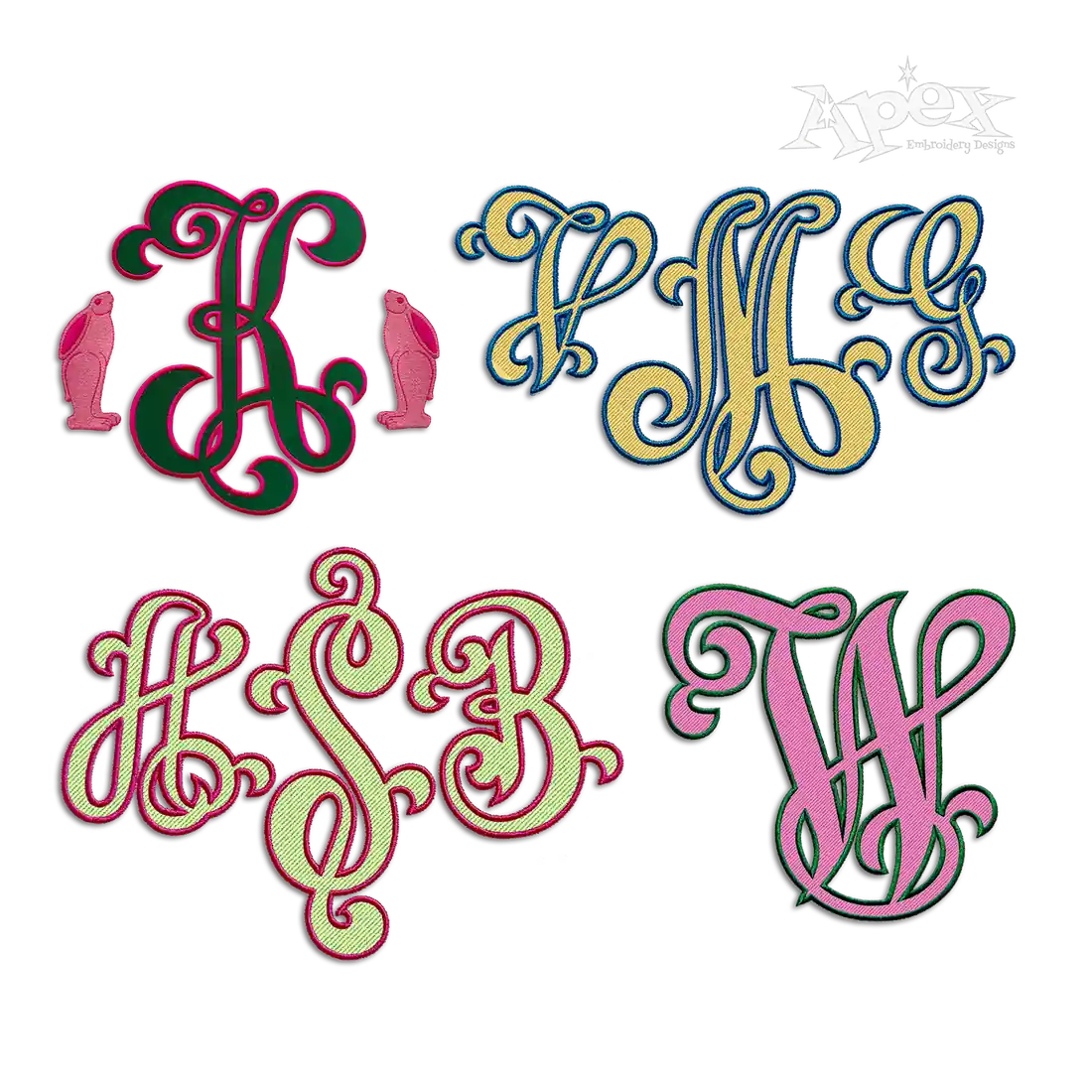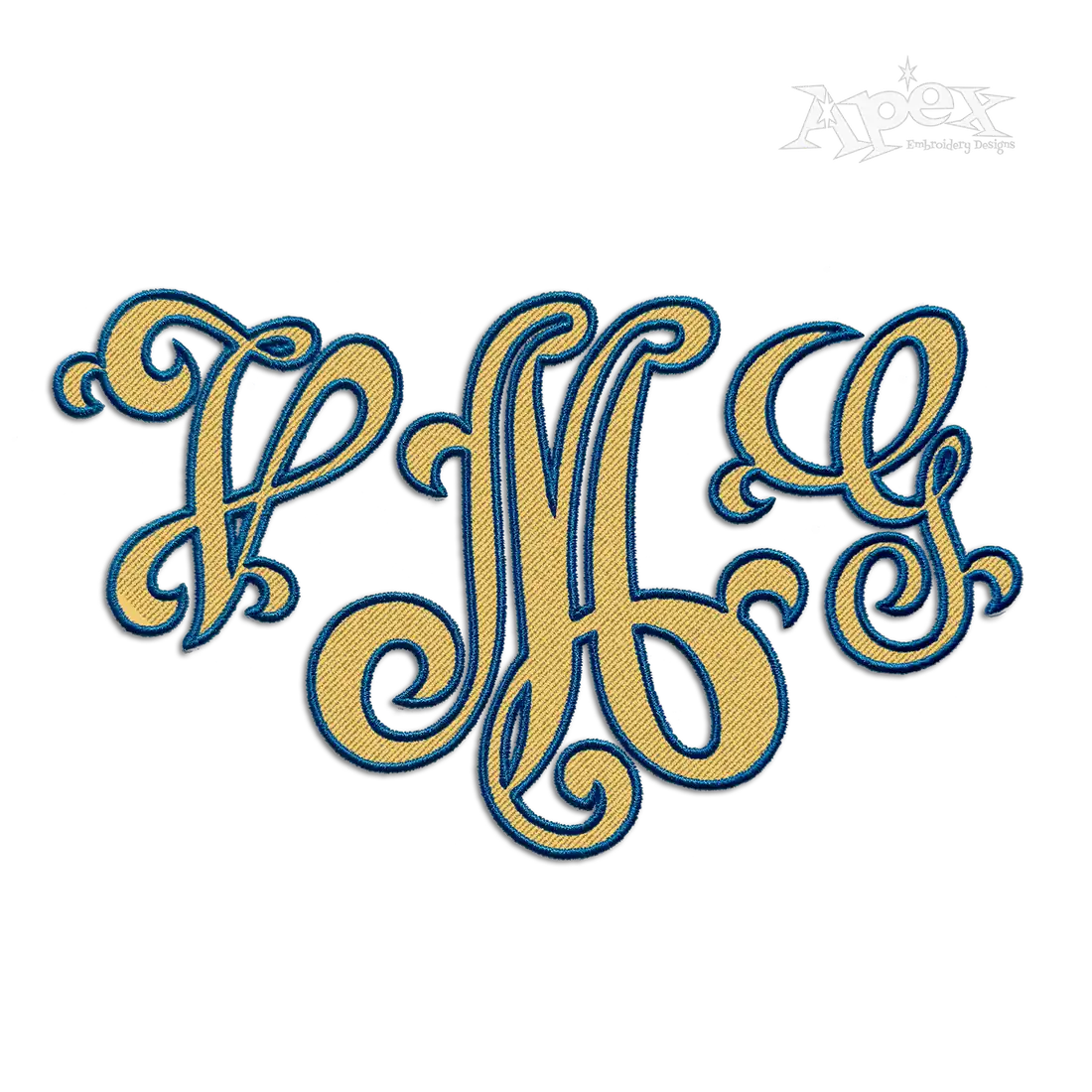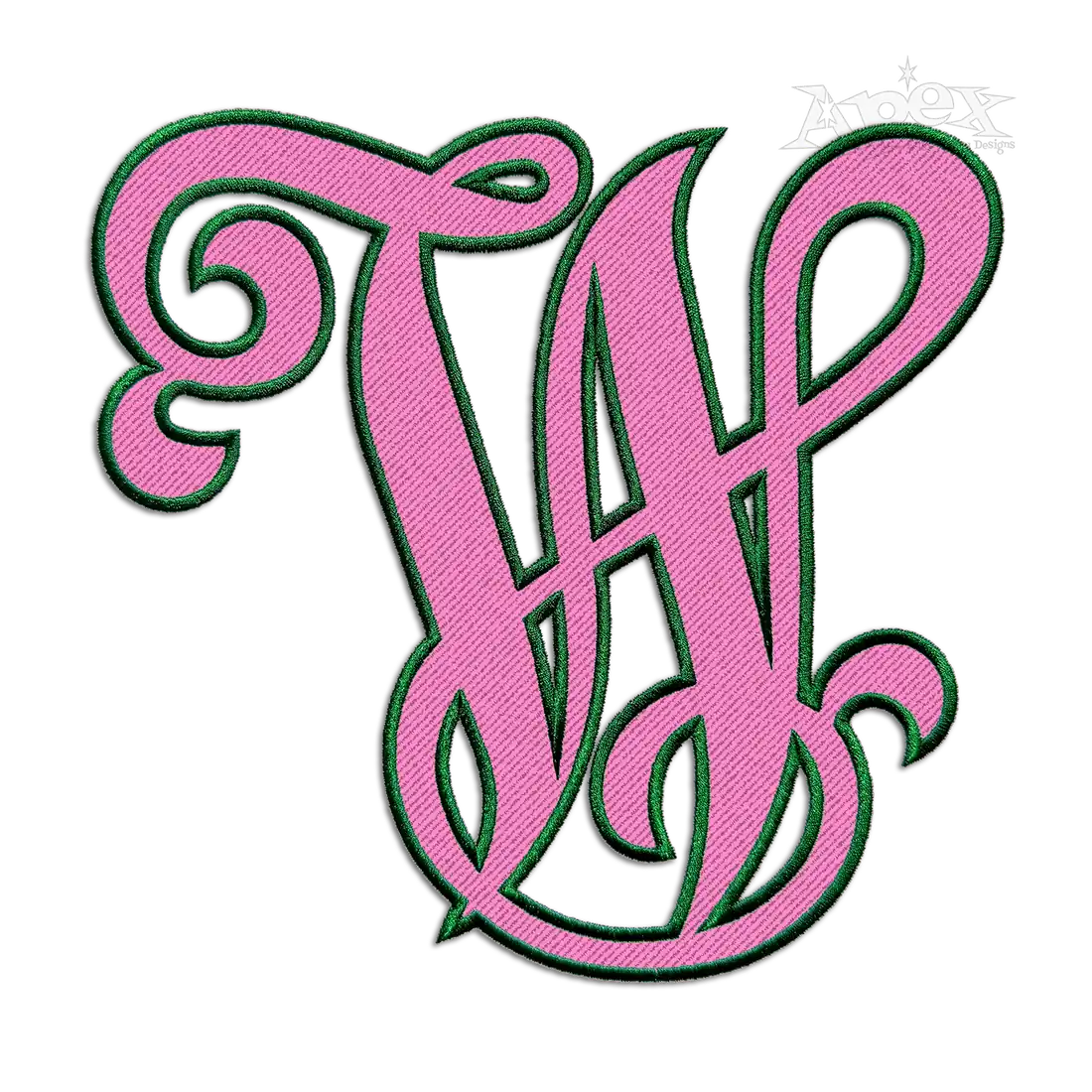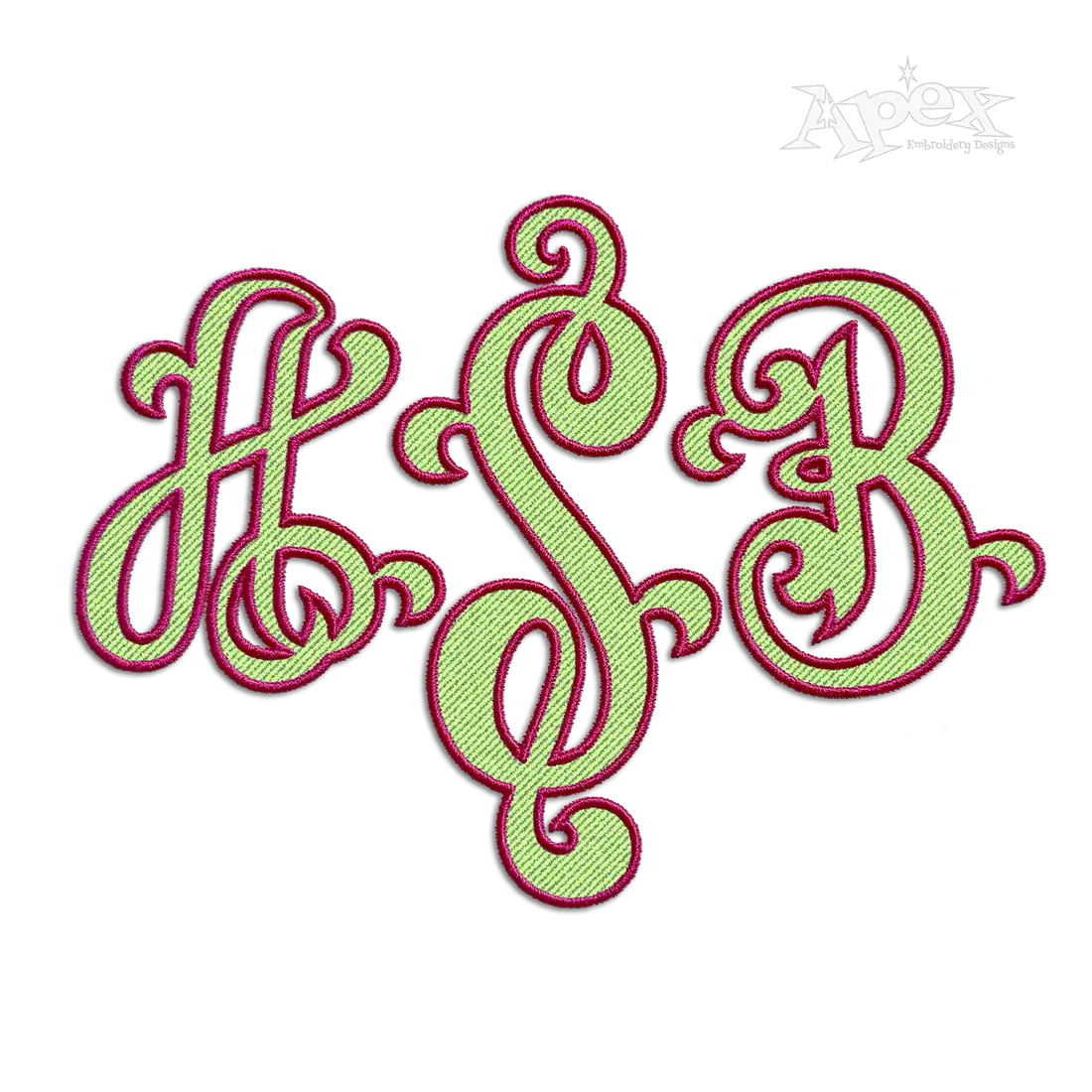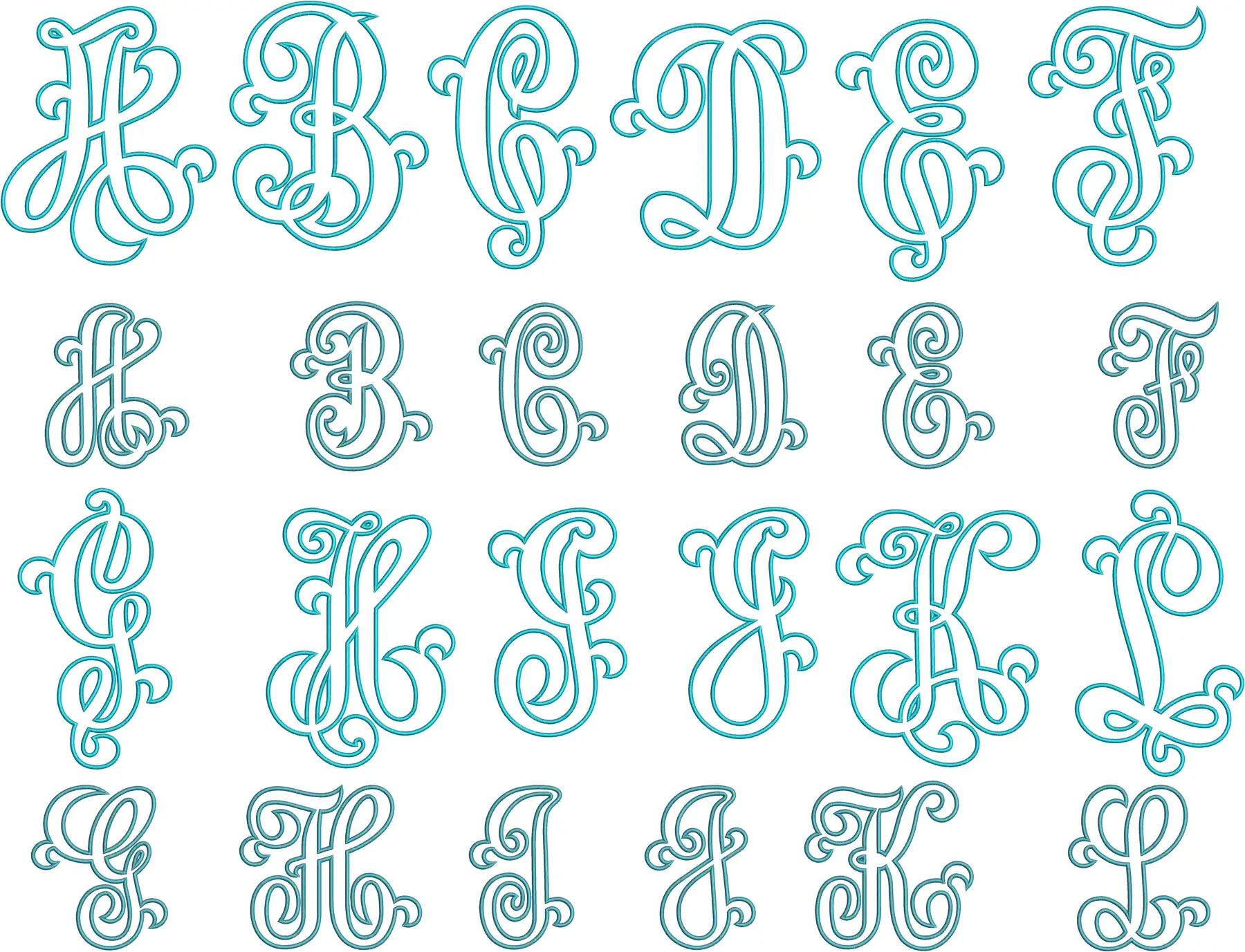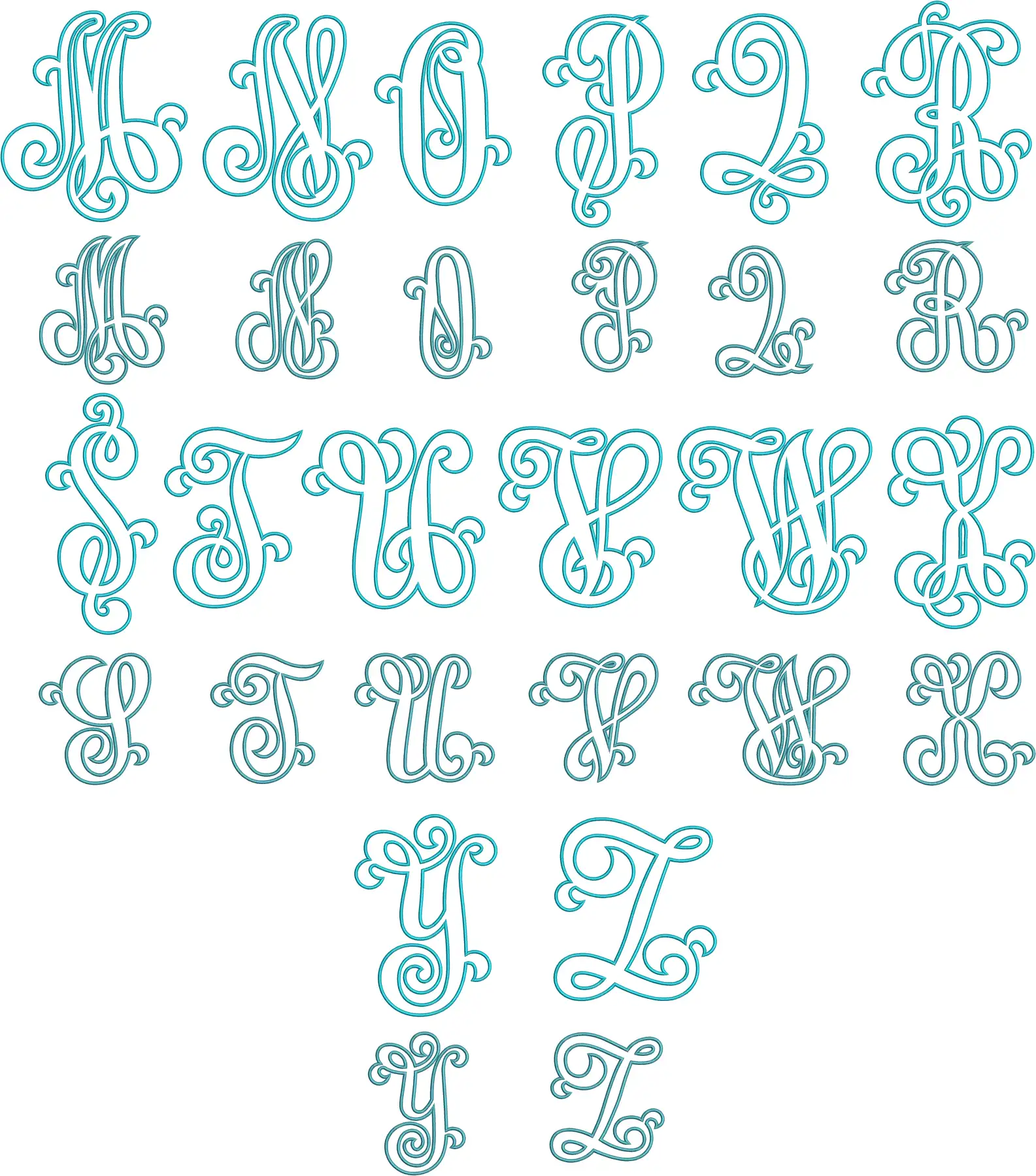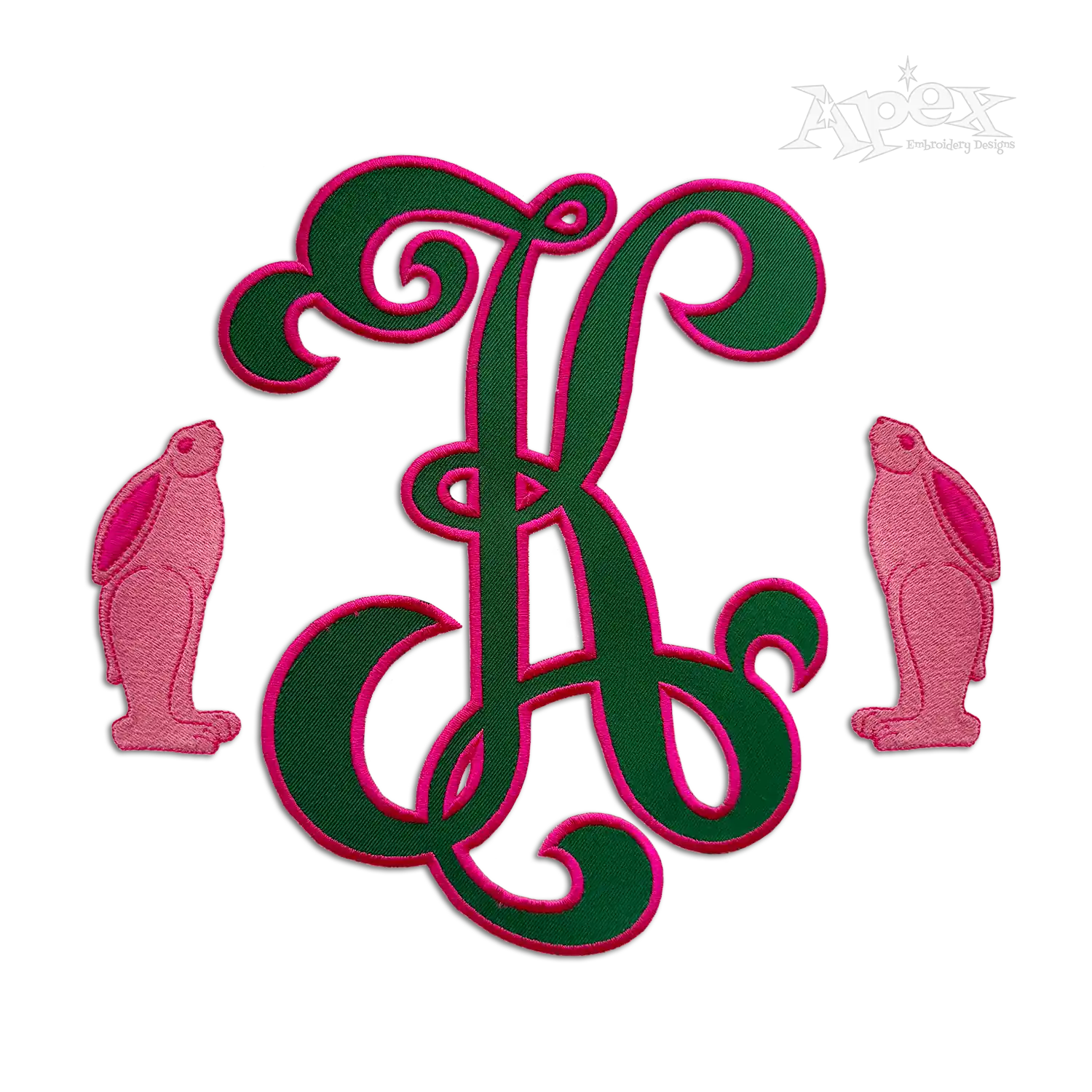
Vinoy Applique Monogram Embroidery Font
Conceived with the grandeur of historic coastal resorts and the stately romance of gilded architecture, the Vinoy Applique Monogram was digitized to command attention with effortless grace. Designed for expansive, grand-scale embroidery where standard monograms simply get lost, this font harmonizes crisp geometric contours with the rich tactile depth of fabric appliqué. Every curve invites the marriage of complementary textiles—from crisp linen and ticking stripes to soft liberty prints—creating an unmistakable bespoke aesthetic that feels both lavishly modern and steeped in Southern heirloom tradition.
The Vinoy Applique Monogram is structured specifically for large-hoop machines, providing beautifully proportioned components to build classic three-letter monograms or dramatic single-initial focal points:
- Two Complete 26-Letter Sets: Designed with dramatic center capitals and perfectly scaled flanking letters for traditional monogramming balance.
Project Ideas for Vinoy Applique Monogram
Because of its heroic scale, the Vinoy Applique Monogram excels wherever high-impact elegance is required:
- Heirloom Bedding & Euro Shams: Frame a grand master bedroom with an oversized center monogram stitched onto crisp 400-thread-count percale or natural linen Euro pillows.
- Heavyweight Canvas Beach & Resort Totes: Elevate luxury travel gear by pairing nautical canvas with bold patterned appliqué lettering.
- Bespoke Nursery Quilts & Keepsake Blankets: Create a generational gift featuring the child’s initial framed in soft gingham or floral chambray.
- Upholstery & Statement Accent Pillows: Add refined personalization to covered patio cushion backs, bench cushions, or fireside wingback accent pillows.
- Grand Holiday Tree Skirts: Adorn an expansive linen or velvet tree skirt with a stately family monogram to anchor your seasonal decor.
Scale dictates strategy when working with large-format appliqué. To make the most of the Vinoy letterforms, consider these positioning techniques:
- Grand Euro Sham Center: Position the monogram directly in the dead center of a 26" x 26" pillow form to create an imposing designer focal point.
- Lower Edge Duvet Banding: Center an oversized single letter 12 to 14 inches above the foot of the bed, creating a European hotel aesthetic.
- Off-Center Canvas Tote Placement: Rather than a small centered mark, set a 10-inch single initial slightly low and centered on the body of an oversized heavy-duty tote bag.
- Throw Blanket Corner Anchor: Angle an initial along the corner diagonal, set 8 to 10 inches inward from the corner hem, ensuring the applique drapes elegantly over the arm of a chair.
Vinoy Applique Monogram Craft & Letterform Details
Digitizing at heights of 10 to 14 inches requires an entirely different technical philosophy than standard embroidery lettering. Rather than simply scaling up a design—which results in heavy, puckered distortion—the Vinoy Applique Monogram was engineered from the foundation up to deliver structural integrity and pure aesthetic joy at grand scale.
Each letter features a clean sequence of precision run-stitches: an initial placement guide, followed by a sure-footed cut-line tack-down that holds your appliqué fabric taut without pulling the weave. The finishing satin border is calibrated to a generous density and width, granting comfortable margin to effortlessly encase raw fabric edges while casting a silky, radiant luster. Flowing serifs and architectural transitions are shaped to glide around corners smoothly, ensuring that your final stitchout remains exceptionally flat, pliable, and heirloom-grade on every project.